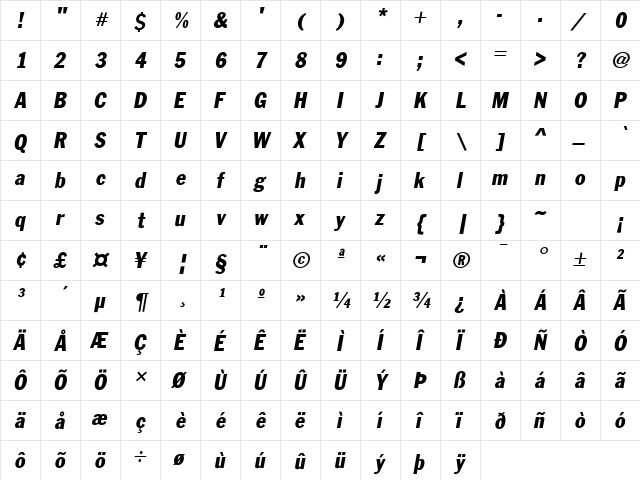
Franklin Cond. Gothic ITALIC Font Preview
Design Context for Franklin Cond. Gothic Typeface
Franklin Cond. Gothic has the quiet confidence of well-executed sans-serif typography: versatile, unobtrusive, and dependable at any size. Its italic angle brings a sense of urgency and motion to the letterforms. Its narrow stance lets it pack a punch even in space-constrained designs.
Font Pairing: Works well alongside a characterful serif or display font that can carry the expressive load while Franklin Cond. Gothic handles the functional copy.
Pro Tip: Try Franklin Cond. Gothic in all-caps with moderate tracking for navigation and label copy — it performs well in systematic UI contexts.